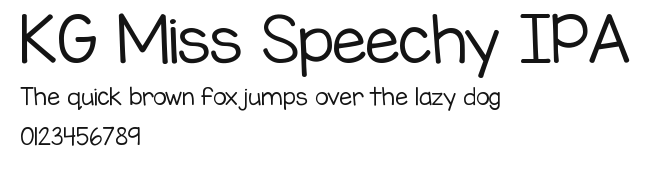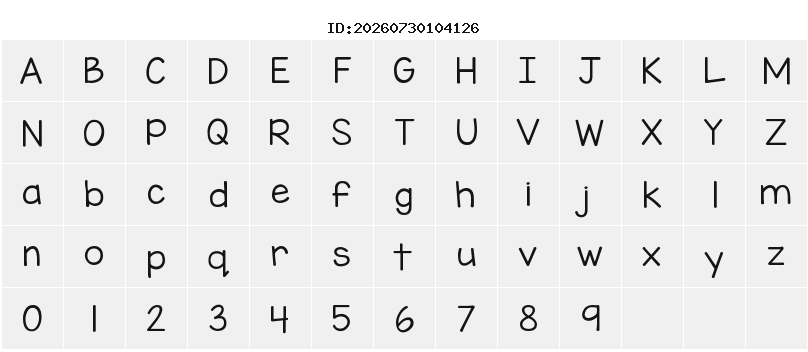
KG Miss Speechy IPA Preview
• Font Name: KG Miss Speechy IPA
• Full Font Name: KG Miss Speechy IPA
• Designer: Kimberly Geswein
About KG Miss Speechy IPA.ttf
KG Miss Speechy IPA.ttf is a modern, elegant sans-serif font designed for ultimate readability and visual harmony. Perfect for branding, headlines, web design, and print materials.